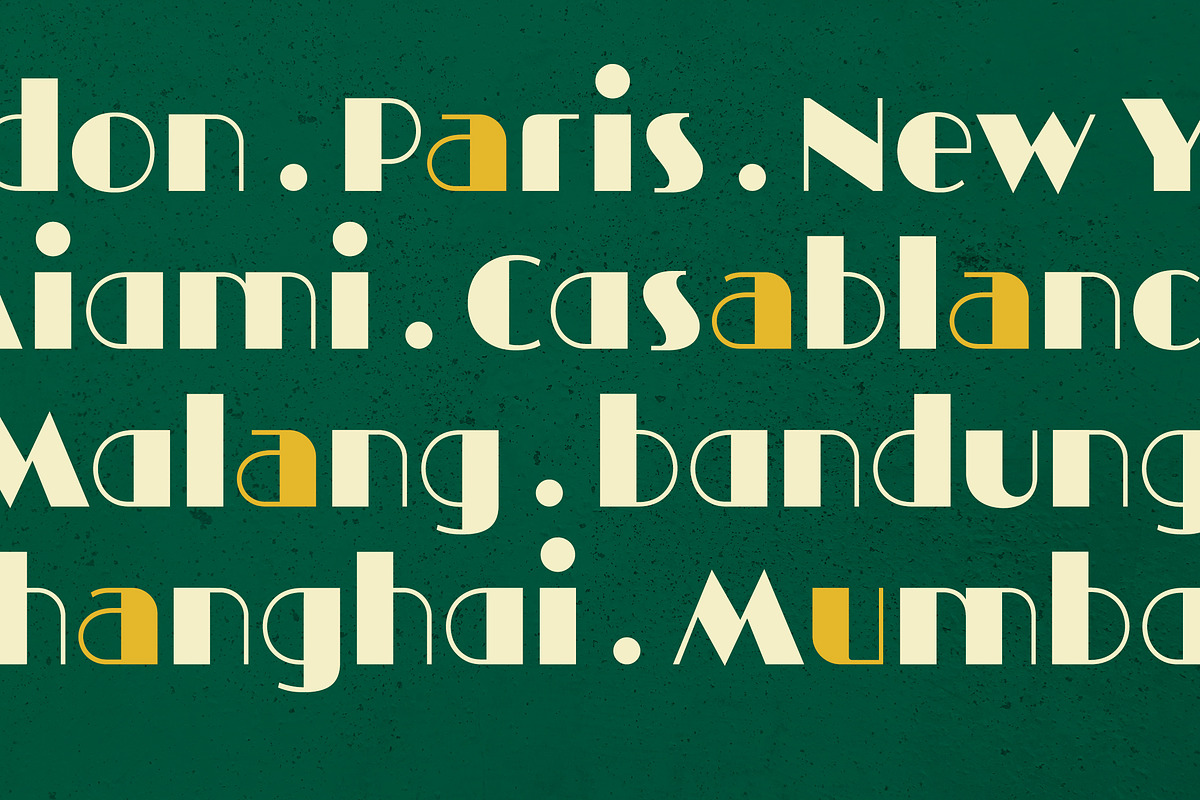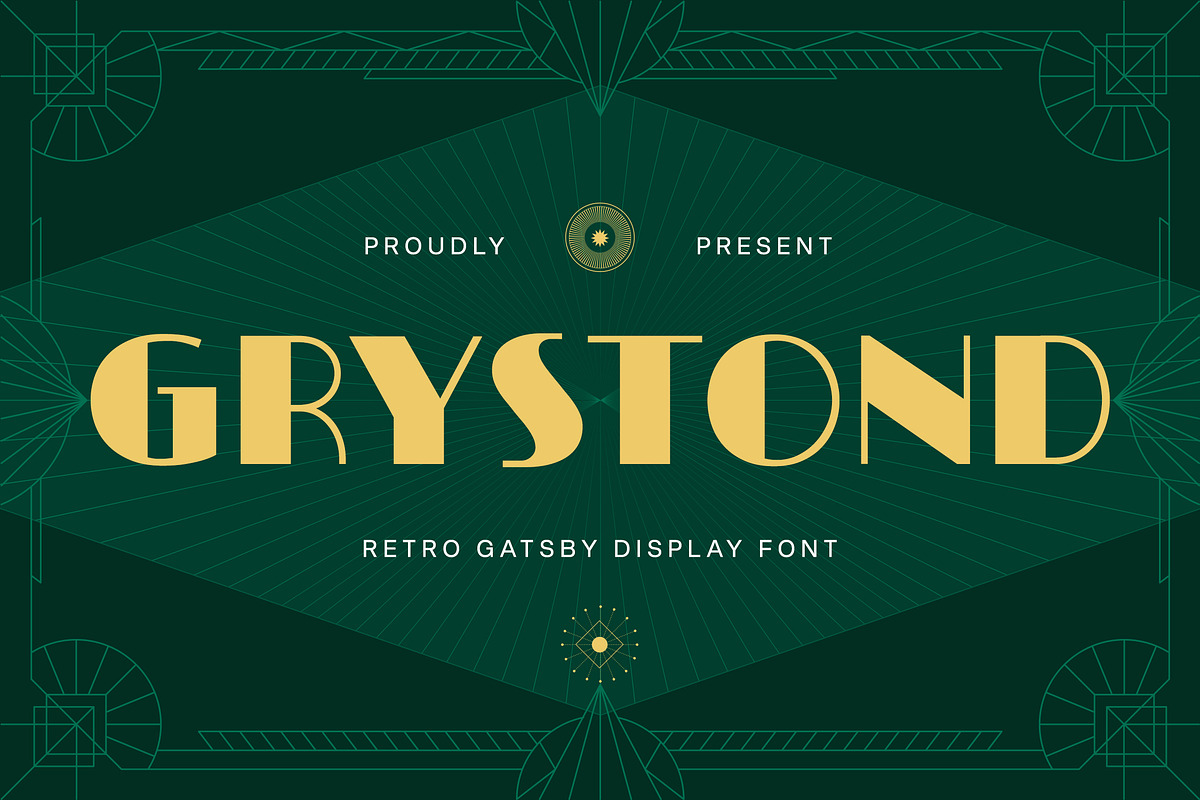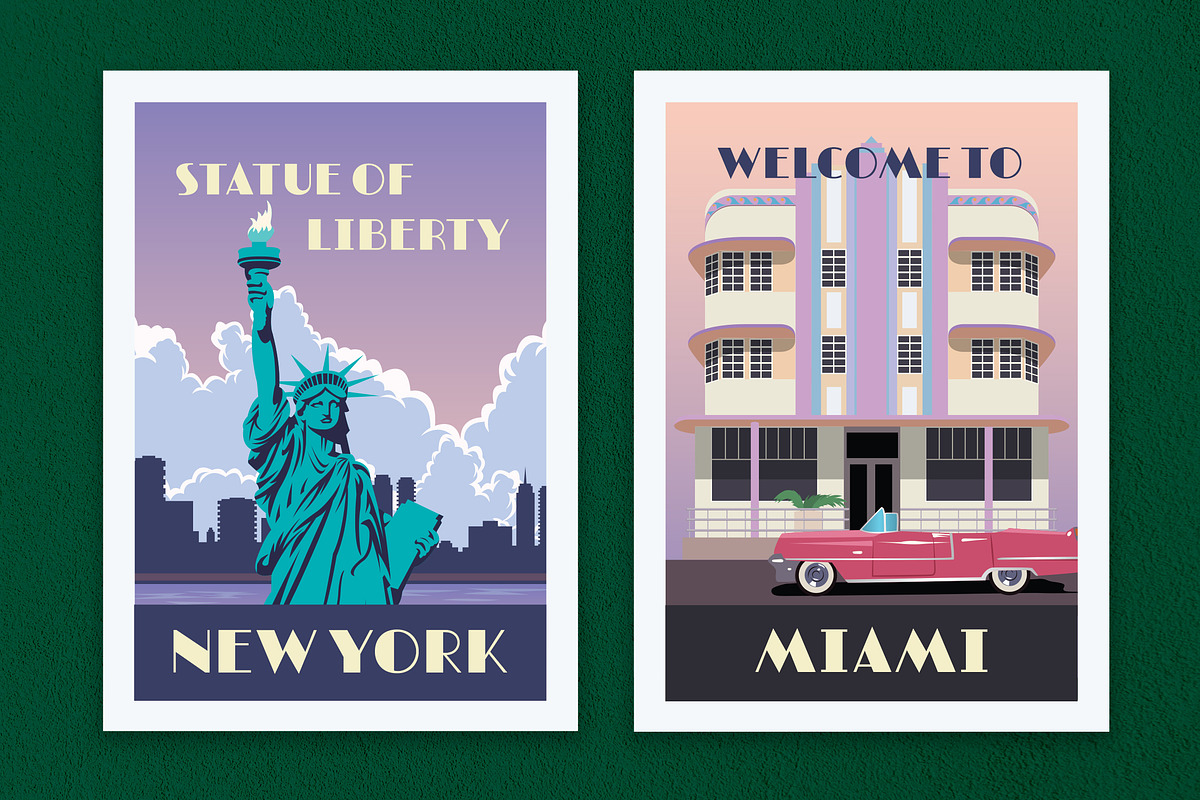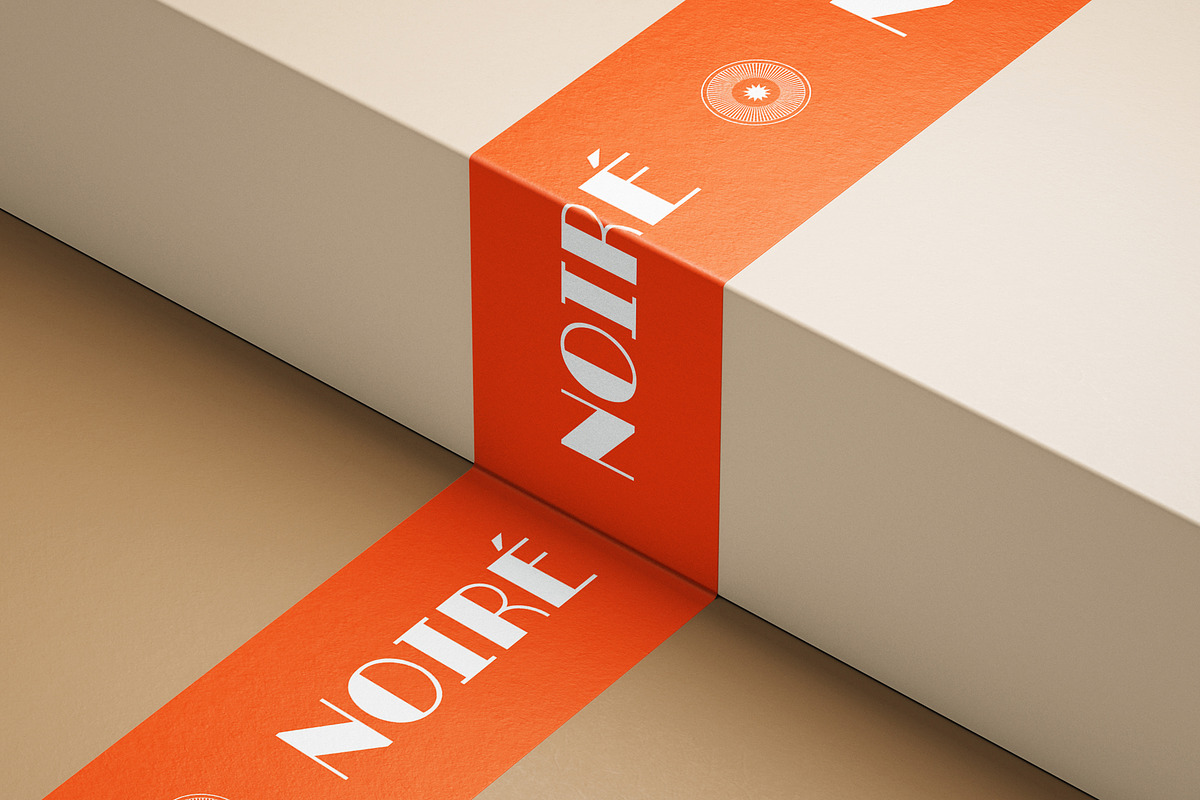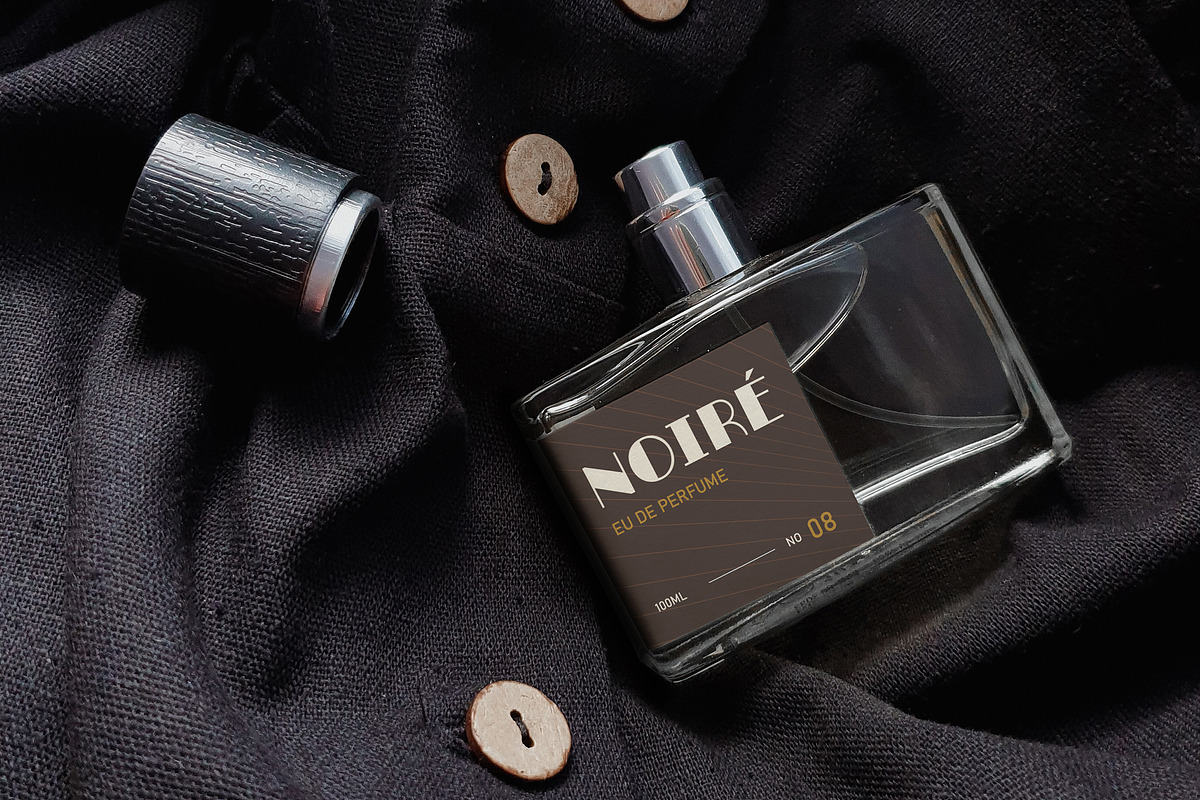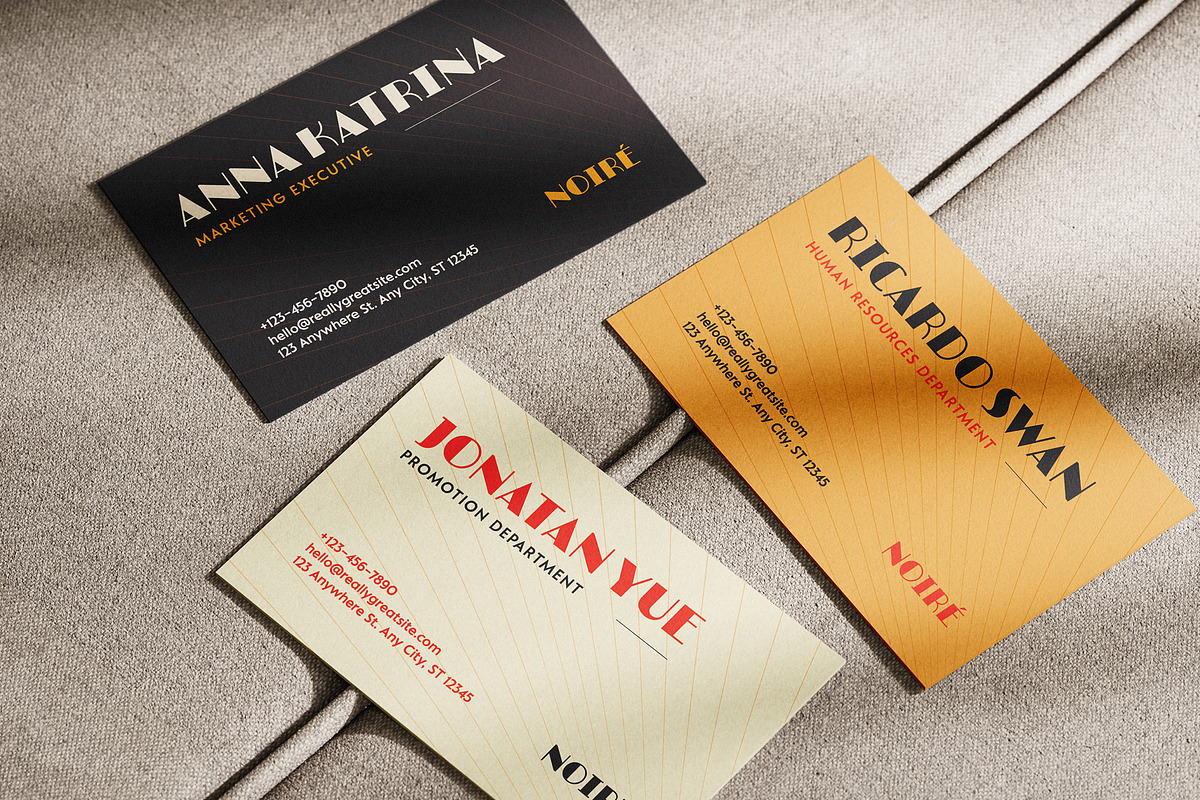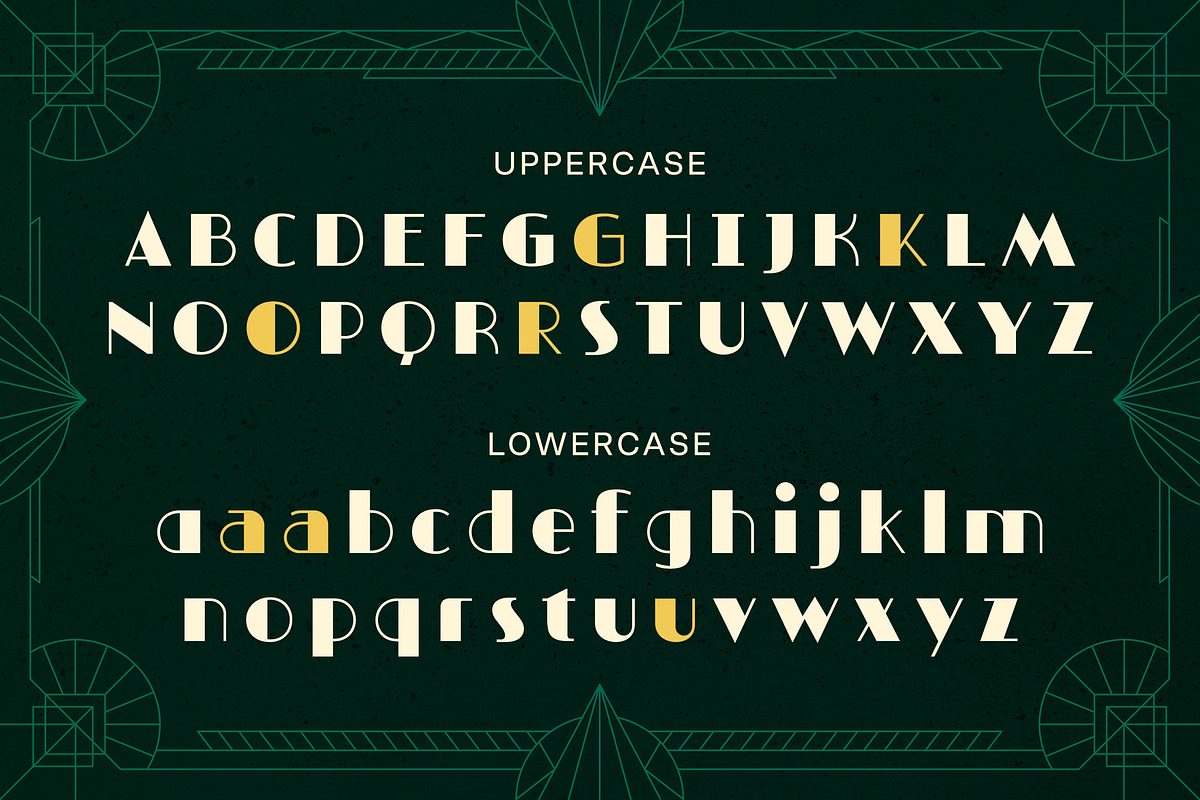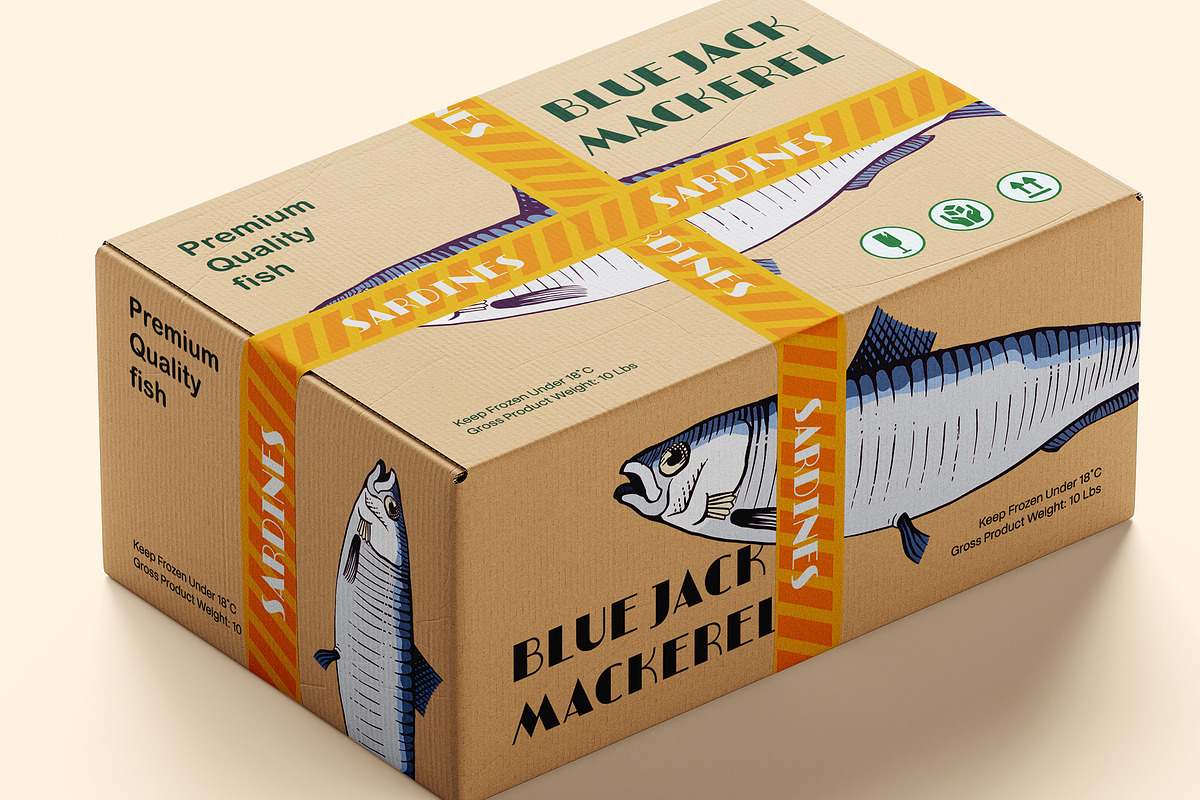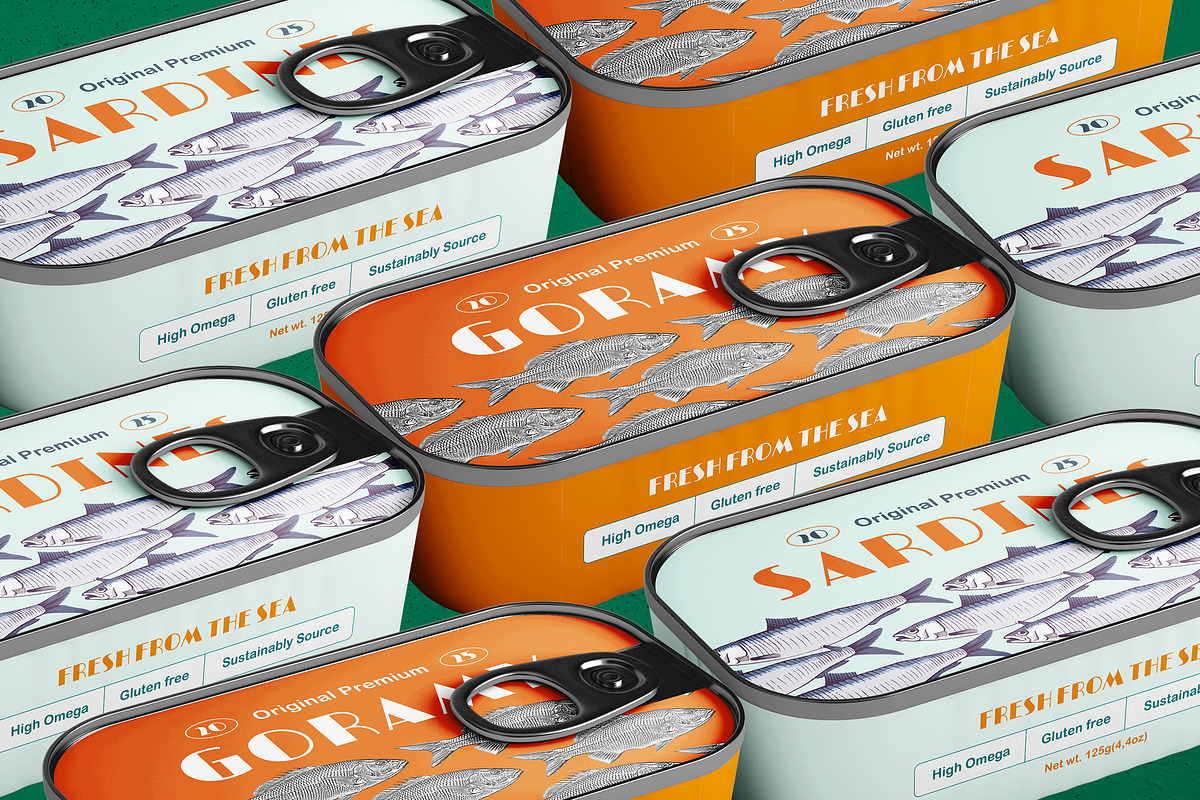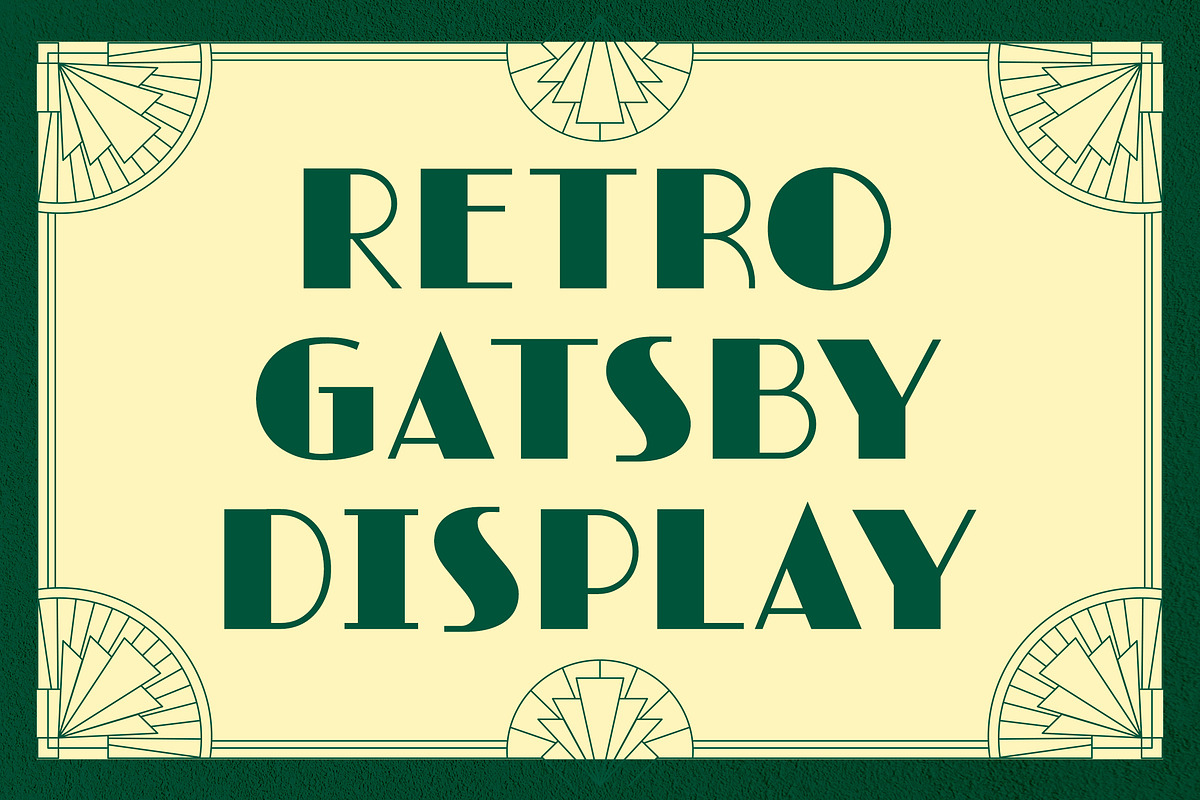
Grystond - Modern Retro Art Deco
Grystond - Modern Retro Art Deco Font - Vintage Gatsby & Classic Luxury Display Font
Grystond is a retro display font inspired by the Art Deco era and the iconic Gatsby style of the 1920s. With its strong vintage feel and elegant character, Grystond is designed to bring a luxurious and sophisticated touch to any design project. This font features bold, unique ligatures, and charming geometric proportions, making it an ideal choice for branding, logos, product packaging, posters, headlines, advertising and any project that need to stand out. Its strong yet readable characteristics are also perfect for creating timeless and classy designs. Grystond offers a perfect blend of classic beauty and modern functionality, making it a valuable asset for any designer looking to add a touch of grace to their work.